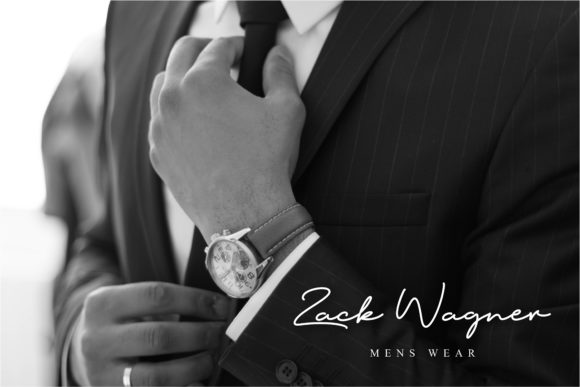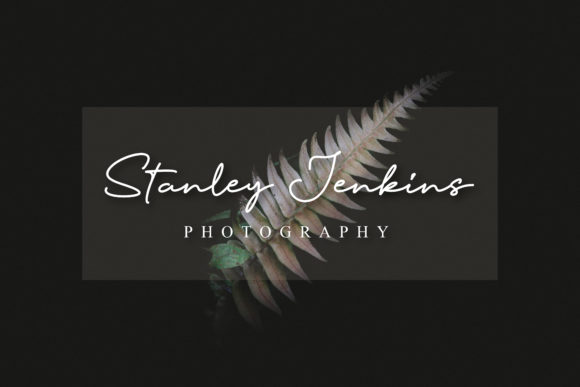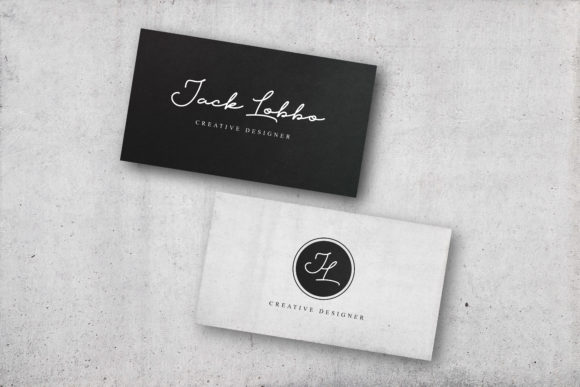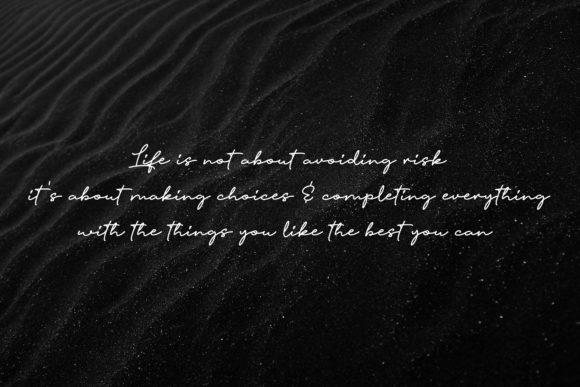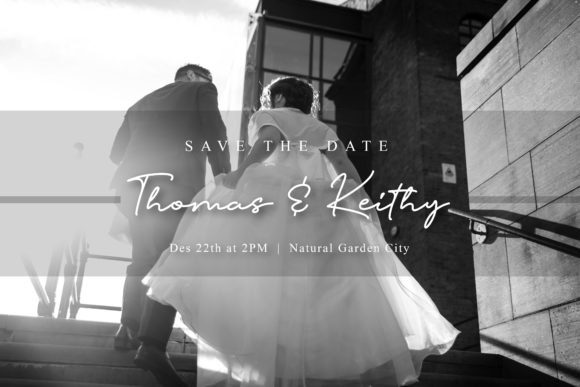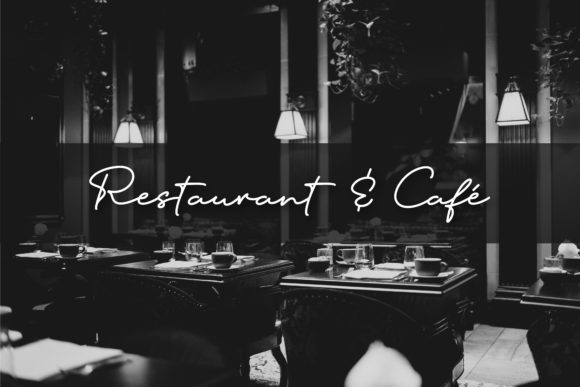
Introduction to Pottoray Font Font
Fonts play a crucial role in design, and the Pottoray Font font is a typeface that brings both character and versatility to any project. Whether you’re working on a branding project, a website, or a print design, the Pottoray Font font offers a unique style that can elevate your work.
Pottoray is a modern and sleek script, with a unique feel.
Fall in love with its contemporary elegance .
Key Features of Pottoray Font Font
Why Choose Pottoray Font Font?
The Pottoray Font font is more than just a typeface – it’s a design tool that helps you communicate your message with style and clarity. Its unique character set and versatile design make it suitable for a wide range of applications, from elegant invitations to bold headlines.
With its carefully crafted letterforms and balanced proportions, the Pottoray Font font ensures readability and visual appeal across all mediums.
What makes Pottoray Font font special?
The Pottoray Font font stands out with its unique design, exceptional readability, and versatility across various design applications.